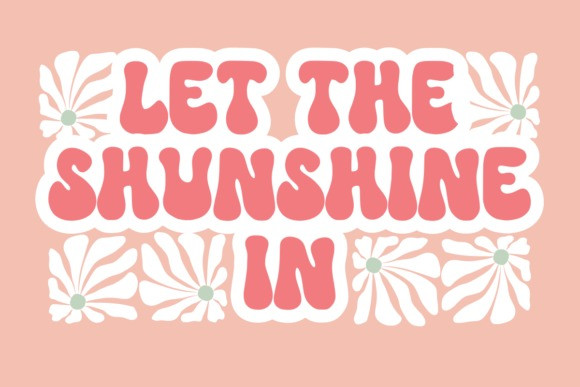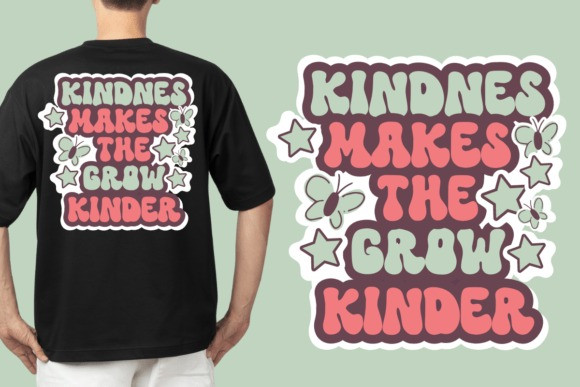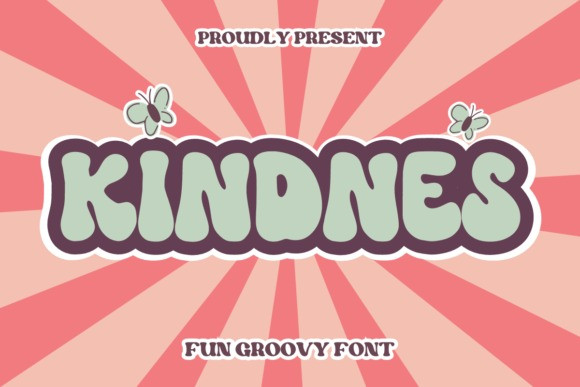
Kindnes Display Font
Kindnes Display Font is a fun and groovy font, it’s perfect for designs that need a playful, cheery accent. It is suitable for book covers, posters, packaging, merchandise, logotypes, and much more.